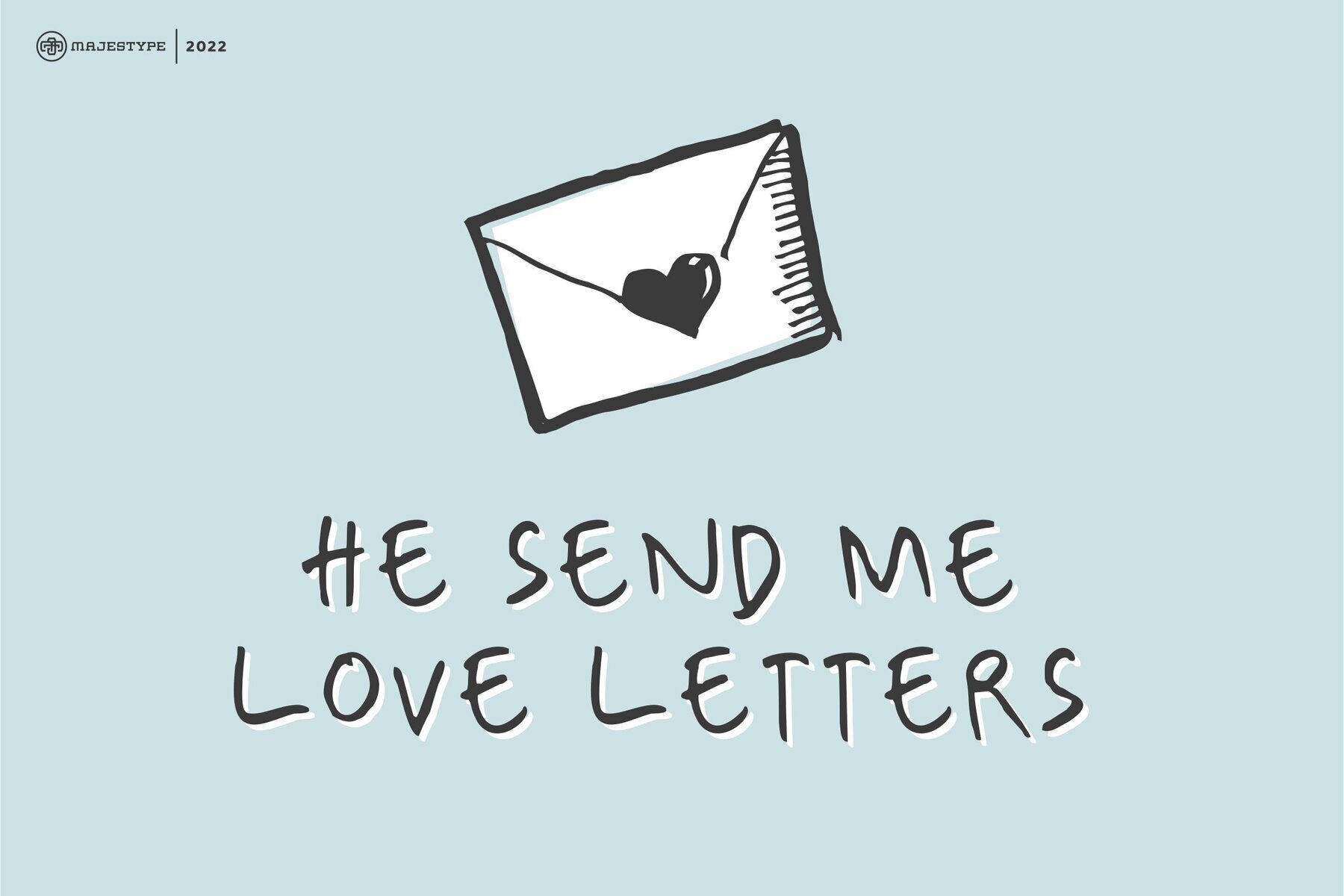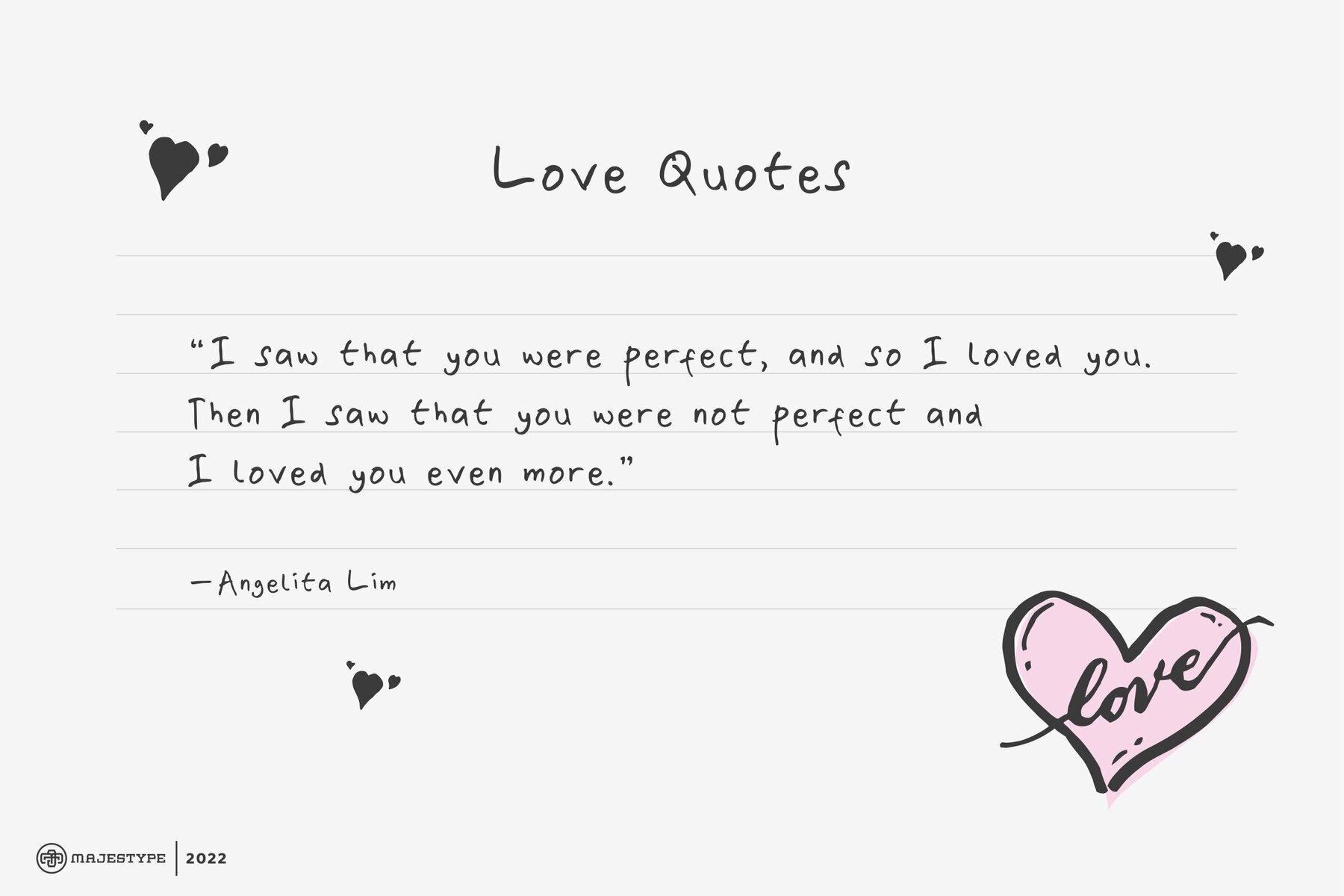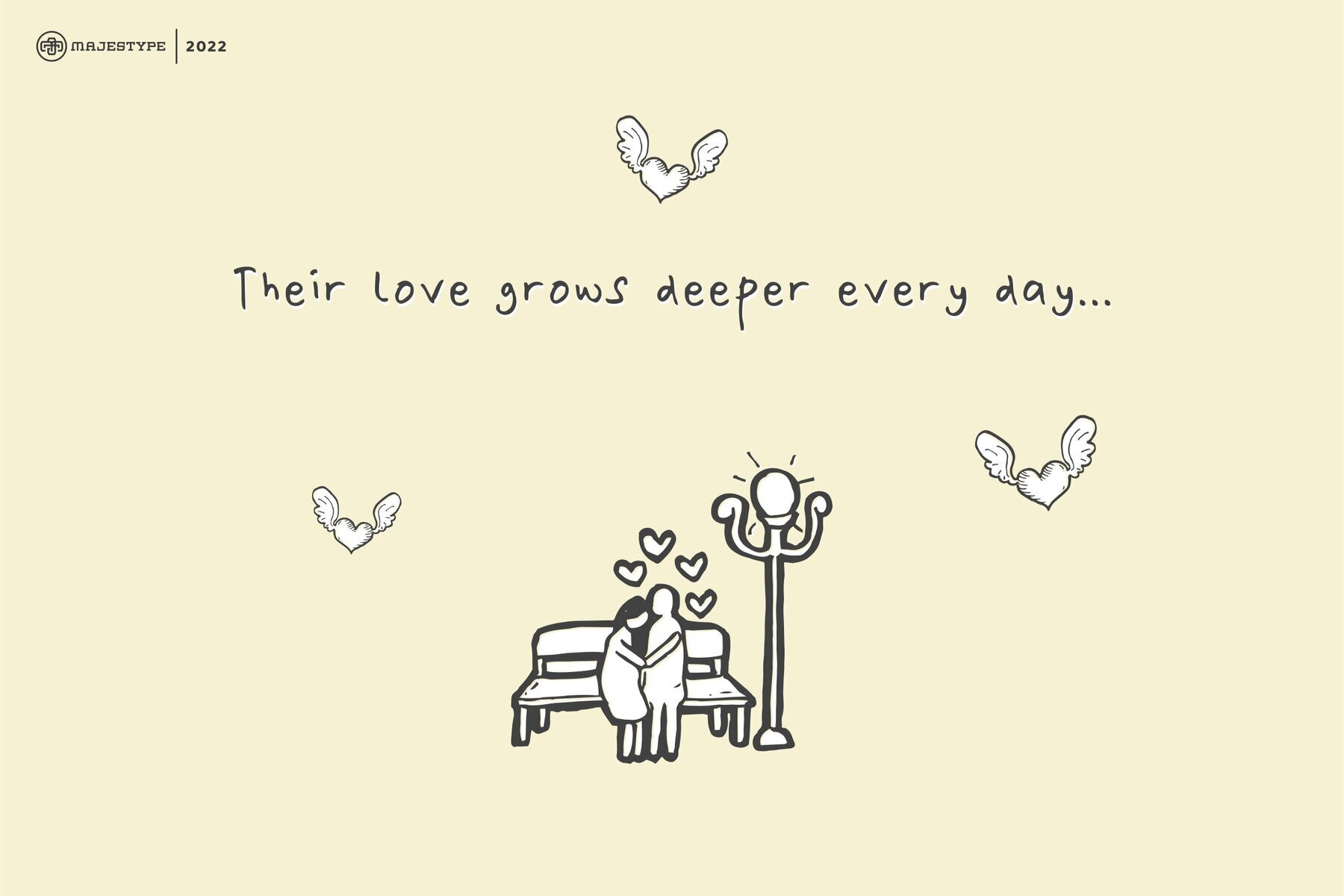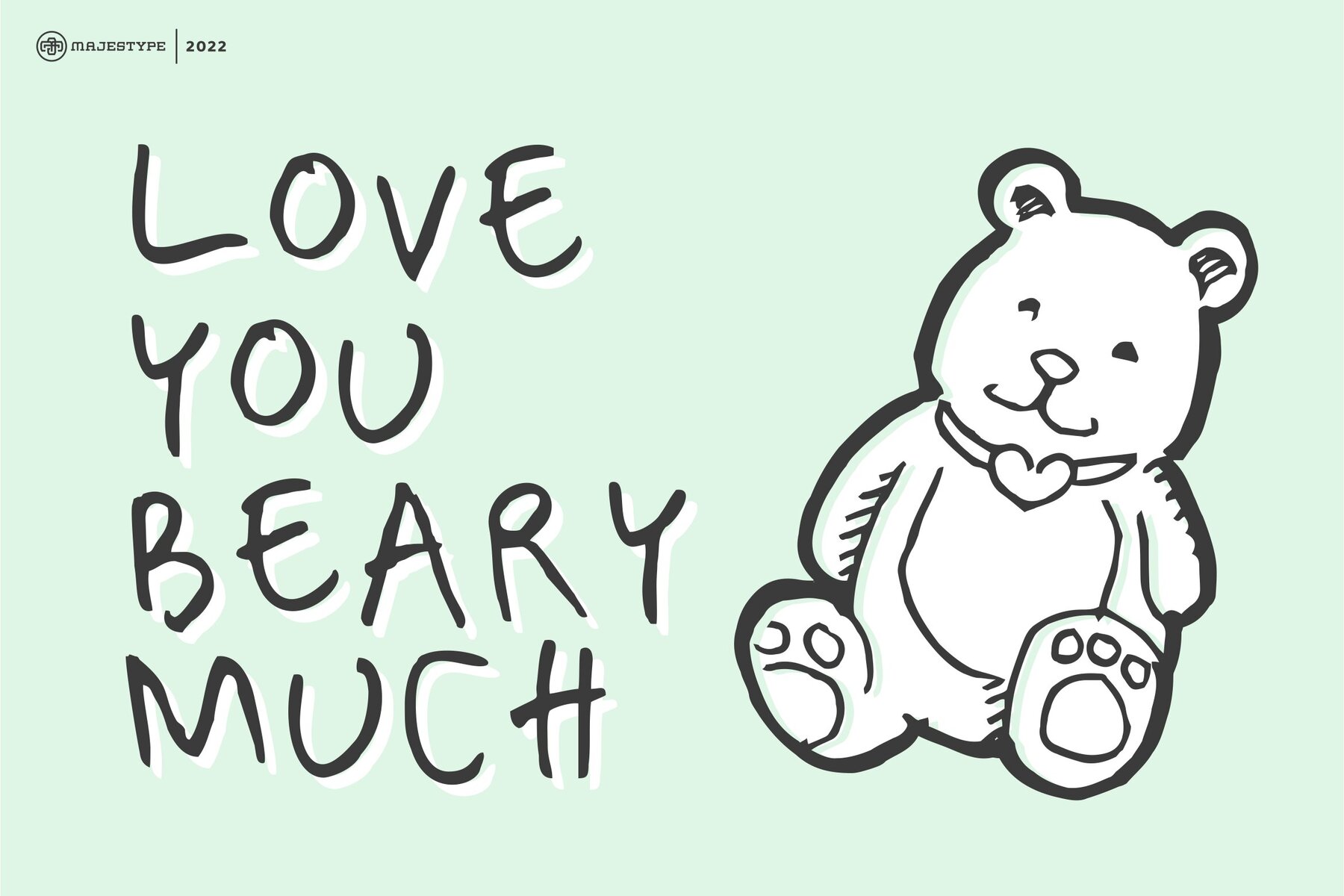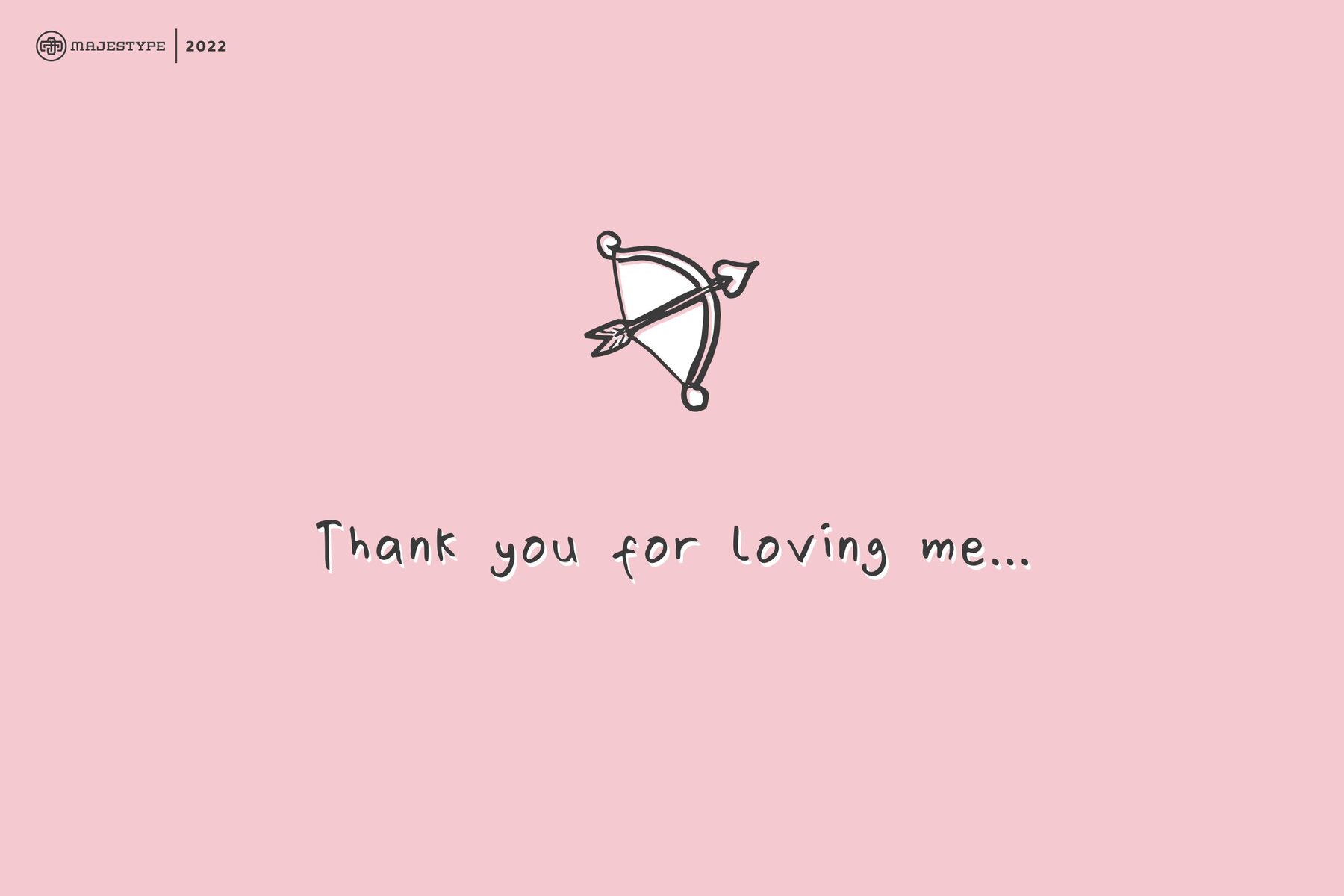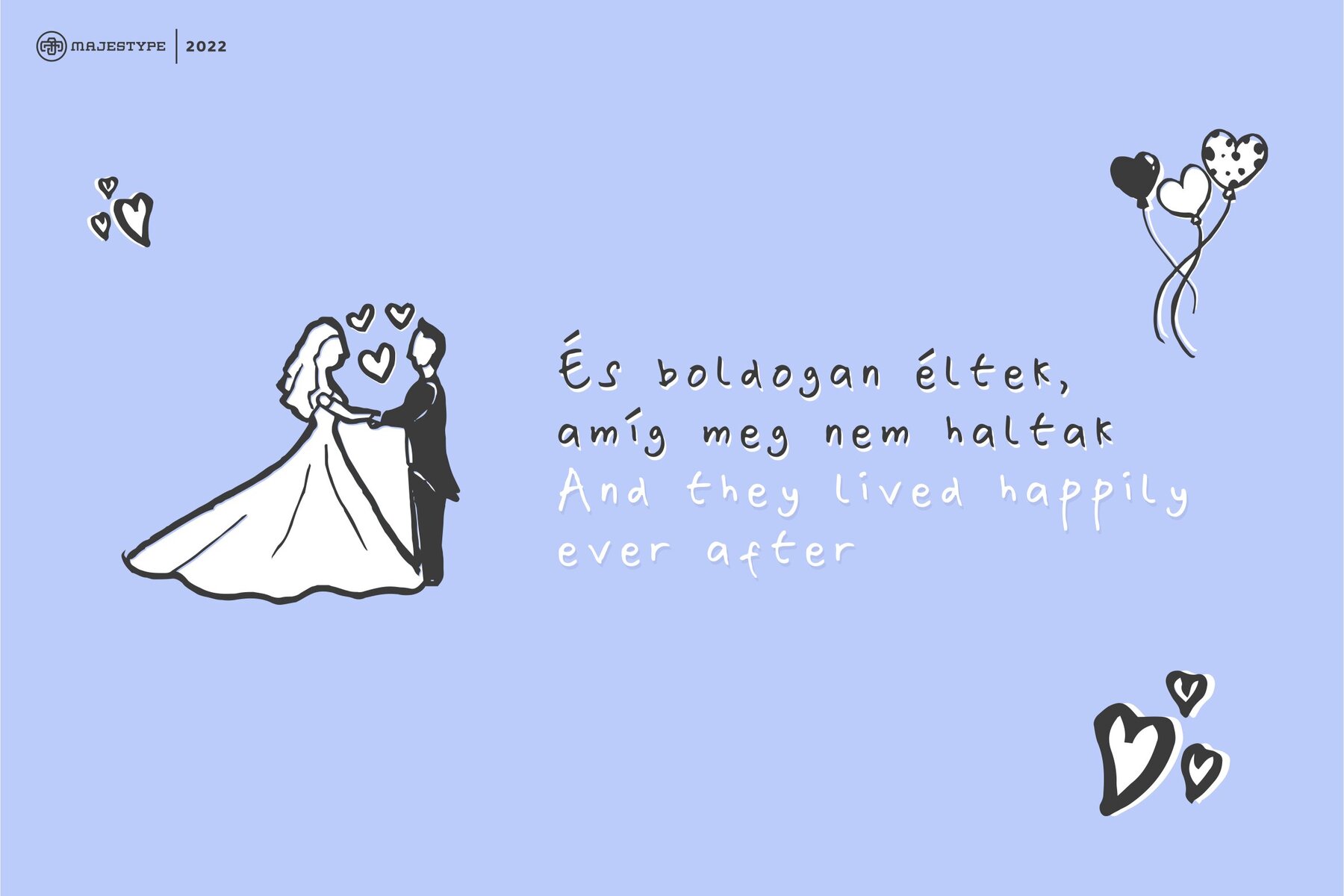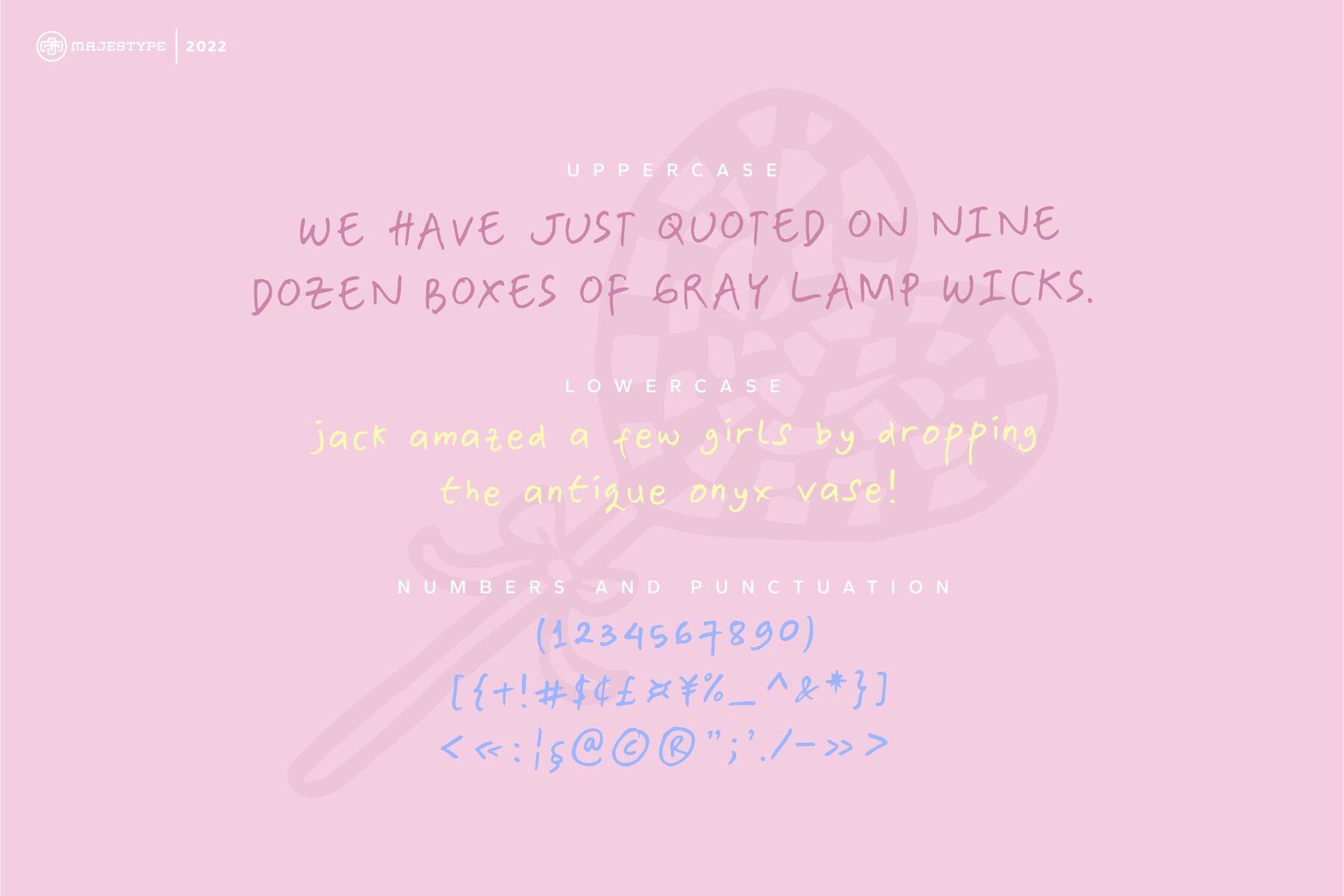
Eulogia Font
Eulogia
Eulogia is a cute, lovely and fun handwritten font. Made with love from scratch using markers. This font brings love, fun and a unique feel to your designs.
With +200 glyphs, it can provide many possibilities for creating great looking designs. Perfect for comics, displays, titles, children's designs with illustrations like our poster displays.
Language Support: Catalan, Danish, German, English, Spanish, Estonian, Finnish, French, Irish, Icelandic, Italian, Norwegian, Portuguese, Slovenian, Albanian, Swedish